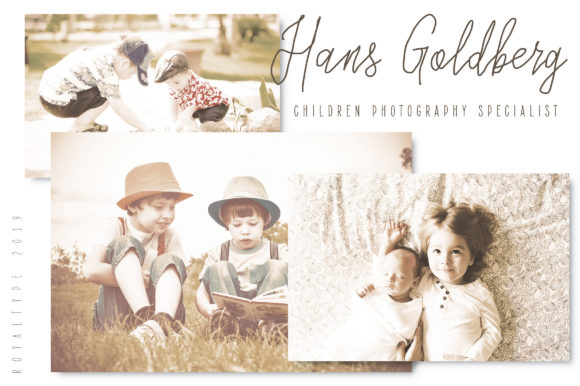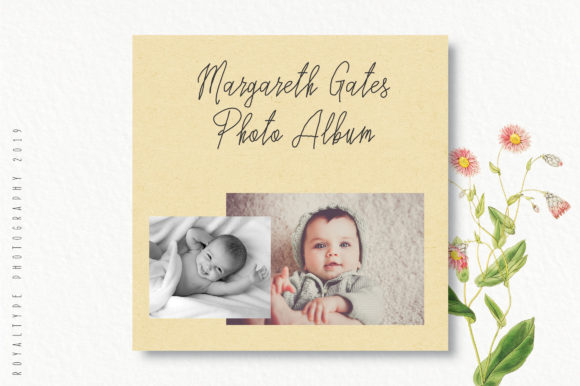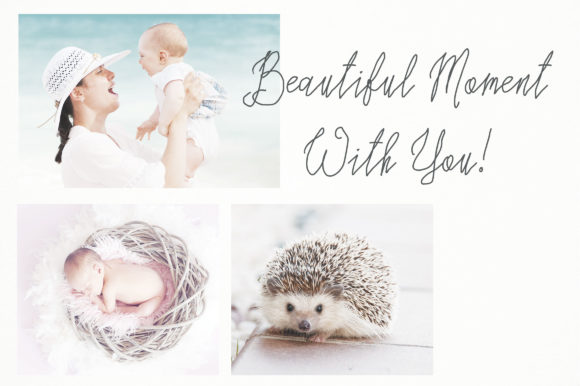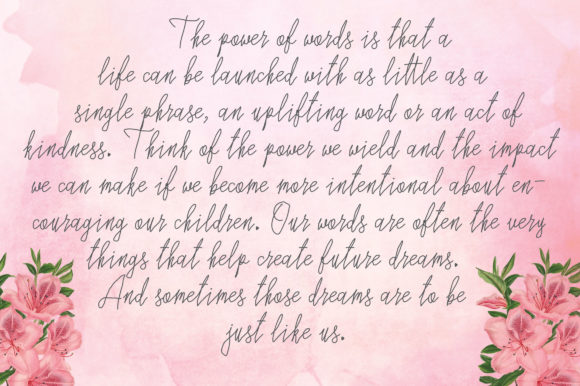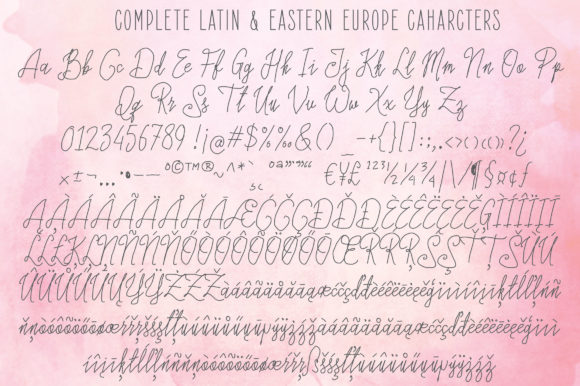
Introducing Children Signature Font: Add a Touch of Whimsy to Your Designs
Are you looking for a font that can add a playful and carefree touch to your designs? Look no further than the Children Signature Font! As the name suggests, this bouncy and casual handwritten font has a childlike feel that is sure to delight. In this article, we’ll take a closer look at the Children Signature Font, its features, and how you can use it to add an adorable twist to your design ideas.
What is Children Signature Font?
Children Signature Font is a unique and charming font that is perfect for designers and crafters who want to add a personal touch to their work. This font is designed to mimic the handwriting of a child, with irregular lettering and a bouncy feel that is sure to bring a smile to your face. The font is highly legible and versatile, making it suitable for a wide range of design projects, from invitations and greeting cards to posters and social media graphics.
Key Features of Children Signature Font
- Childlike feel: The font has a playful and carefree feel that is reminiscent of a child’s handwriting.
- Bouncy and casual: The font has a bouncy and casual feel that is perfect for designs that require a playful touch.
- Handwritten: The font is designed to mimic the look of handwritten text, giving it a personal and unique feel.
- Highly legible: Despite its playful feel, the font is highly legible and easy to read.
- Versatile: The font is suitable for a wide range of design projects, from invitations and greeting cards to posters and social media graphics.
How to Use Children Signature Font in Your Designs
Children Signature Font is a versatile font that can be used in a wide range of design projects. Here are a few ideas to get you started:
- Invitations: Use the font to create playful and personalized invitations for parties, birthdays, and other special occasions.
- Greeting cards: Add a personal touch to your greeting cards with the Children Signature Font.
- Posters: Use the font to create eye-catching posters for kids’ events, parties, and activities.
- Social media graphics: Add a playful touch to your social media graphics with the Children Signature Font.
- Crafting projects: Use the font to add a personal touch to your crafting projects, such as scrapbooking, card making, and DIY gifts.
Tips for Getting the Most Out of Children Signature Font
Here are a few tips for getting the most out of the Children Signature Font:
- Use it with bright colors: The font looks great with bright and bold colors, so don’t be afraid to experiment with different color combinations.
- Pair it with other fonts: The Children Signature Font pairs well with other fonts, so try combining it with a sans-serif font for a fun and playful look.
- Experiment with different sizes: The font looks great in a variety of sizes, so don’t be afraid to experiment with different sizes to find the one that works best for your design.
In conclusion, the Children Signature Font is a unique and charming font that is perfect for designers and crafters who want to add a playful and carefree touch to their work. With its childlike feel, bouncy and casual style, and highly legible design, this font is sure to delight. Whether you’re creating invitations, greeting cards, posters, or social media graphics, the Children Signature Font is a great choice. So why not give it a try and see how it can add an adorable twist to your design ideas?